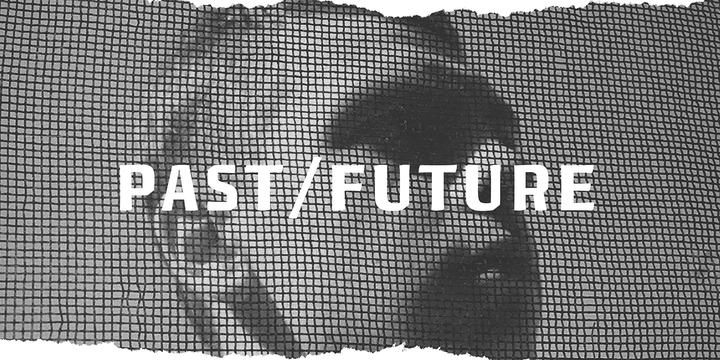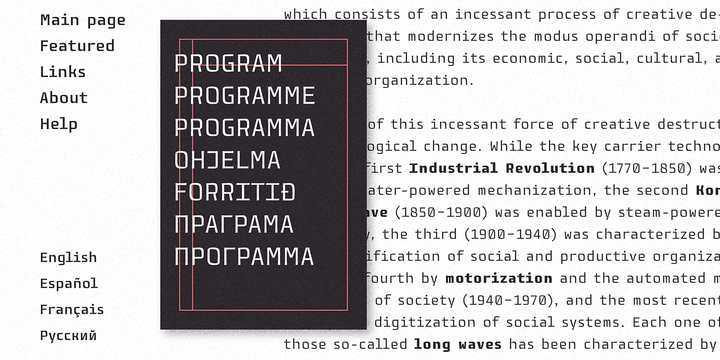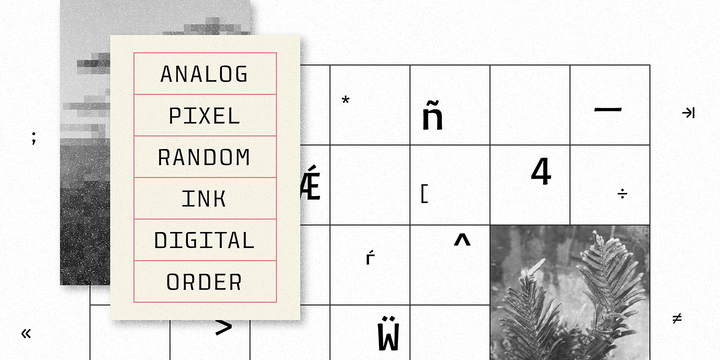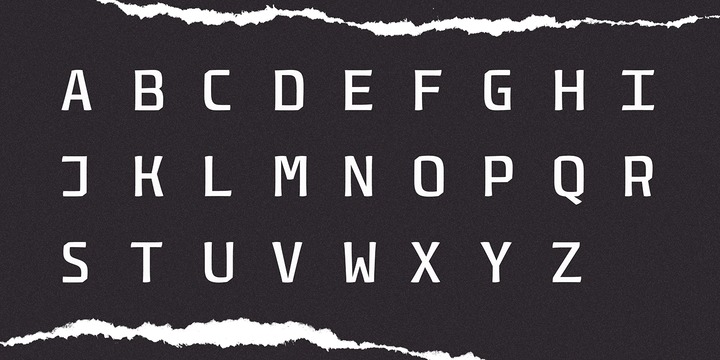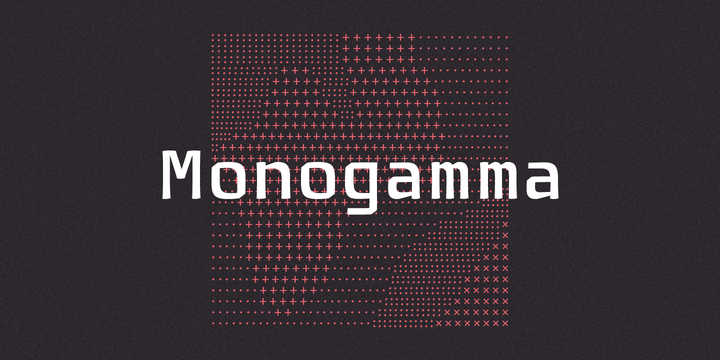
Monogamma is an experimental typeface which explores opportunities for harmonious connection of broad nib writing and the aesthetics of monospaced typefaces.
The typeface is primarily designed for headings and typesetting in large sizes.
It is not intended for technical usage, therefore its metrics and characters proportions are optimized and the spacing between letters is optically evened out.
Thereby, Monogamma has even letter spacing, contrasting styles and is free from the imperfections of monospaced fonts.
It is supplied with kerning and OpenType features and comes in three weights and six styles, with full character set or capitals only.
Supporting Latin and Cyrillic, it covers most European languages. The full character set includes an alternative capital U and zero, punctuation marks for the upper case and a set of arrows.